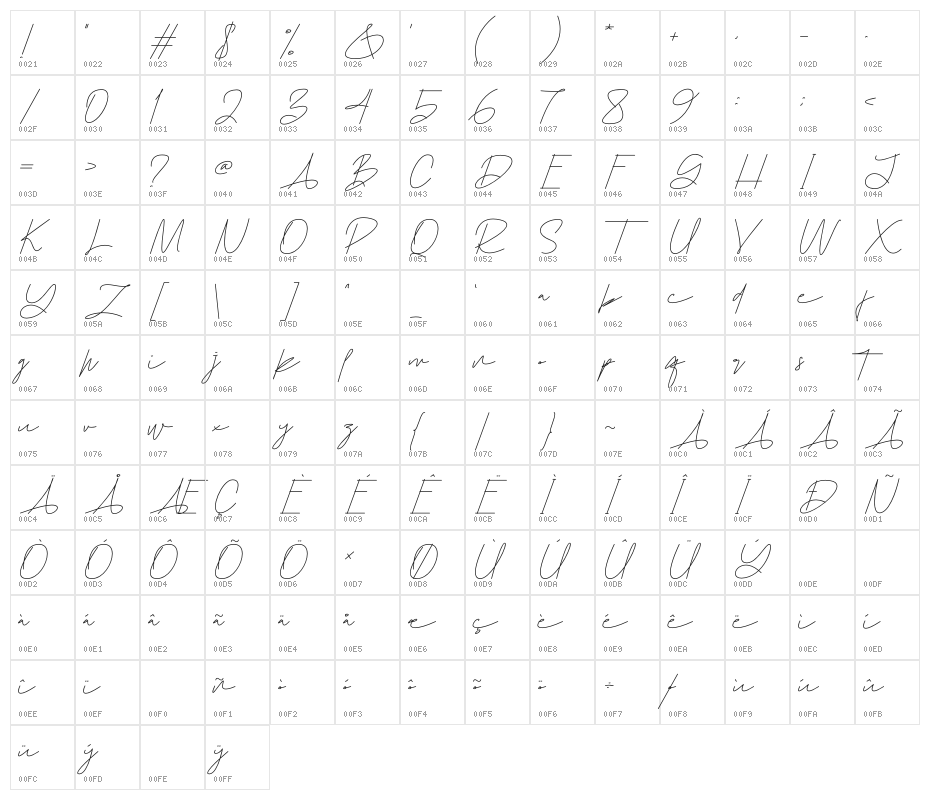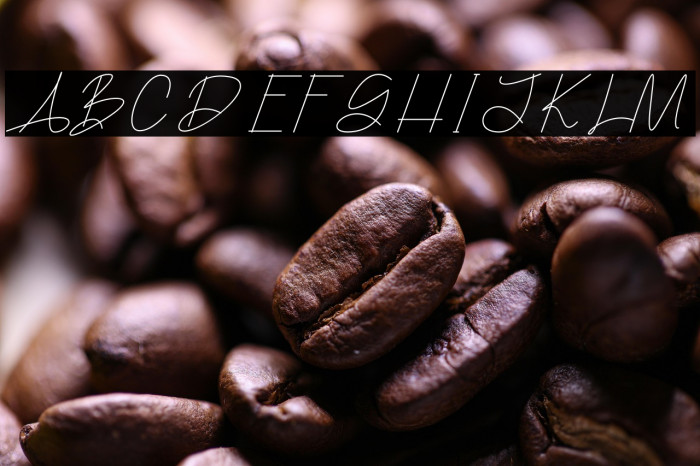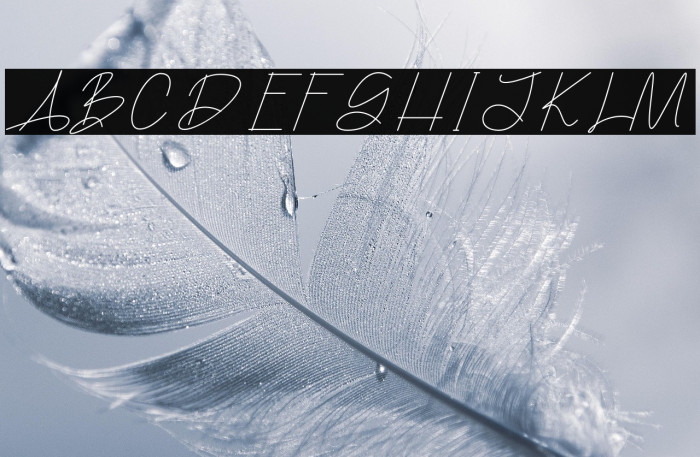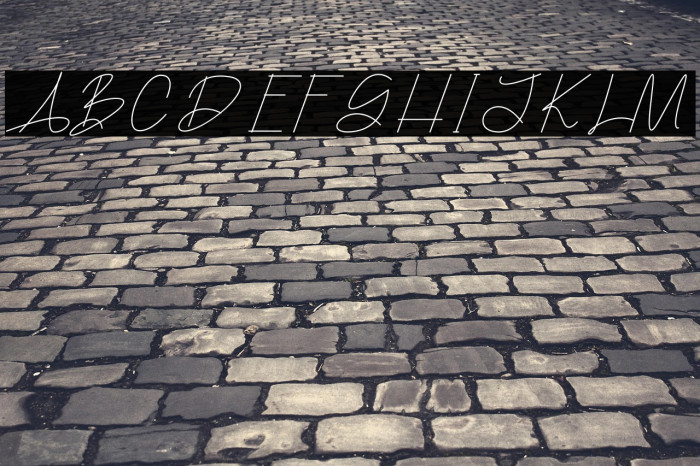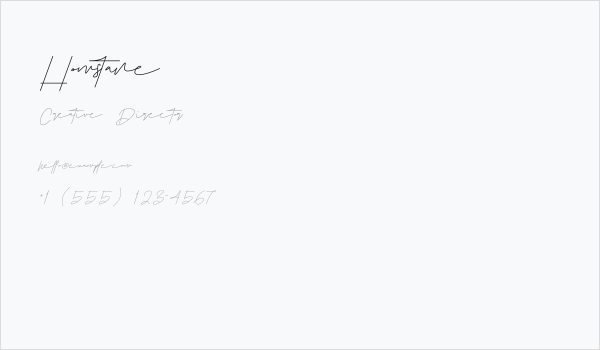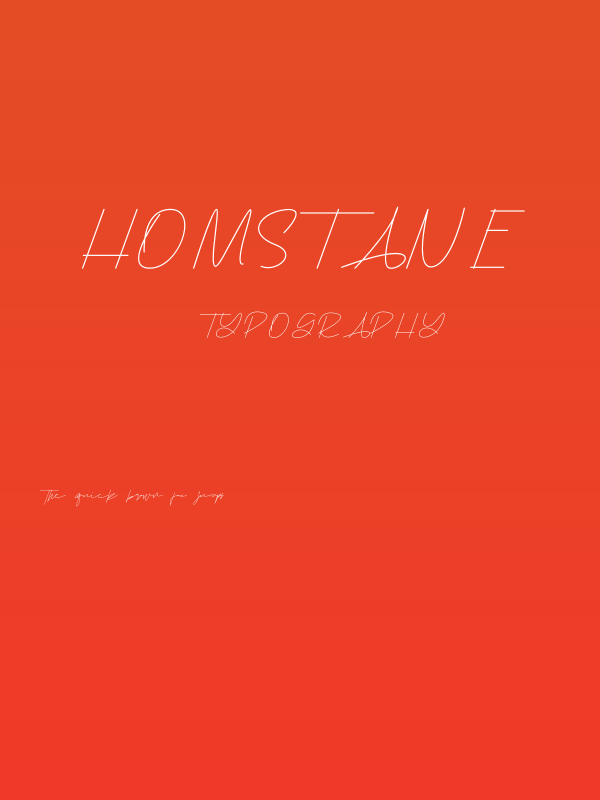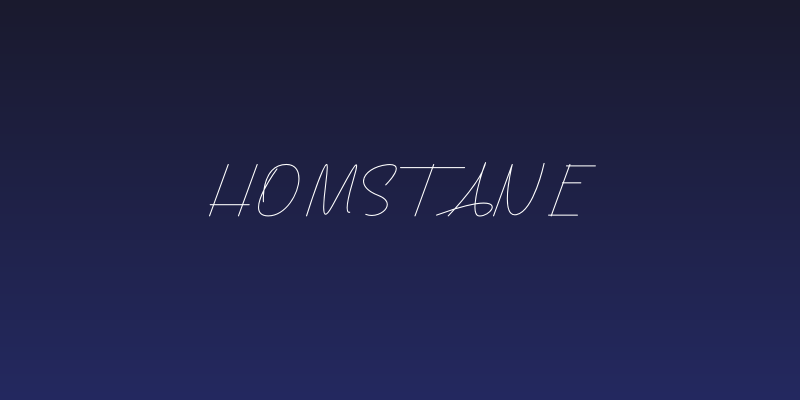
Homstane Font
Homstane Description
This font features a handwritten, cursive style with a fluid and elegant appearance. The uppercase letters are tall and slender, with a slight slant that adds a dynamic feel. Lowercase letters are more varied in height, with some letters extending below the baseline, enhancing the handwritten aesthetic. The numerals are consistent with the overall style, maintaining the same fluidity and elegance. Special characters are well-integrated, matching the cursive flow. The strokes are thin, with a consistent weight throughout, giving the font a delicate and sophisticated look.
| Overall Style | Elegant, Handwritten |
| Use Case | Invitations, Personal Branding, Stationery |
| Proposed Projects | Ideal for wedding invitations, personal branding, greeting cards, and elegant stationery. |